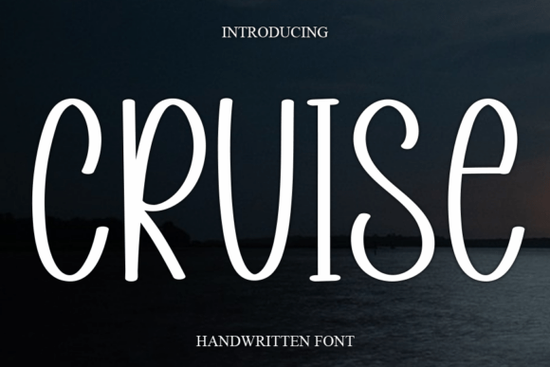
Looking for a font that brings a soft, personal touch to your designs? The Cruise Font is a great choice if you want something that feels warm and inviting. With its flowing cursive style, it’s perfect for adding a sense of elegance without being too formal. Whether you're working on a logo, wedding invitation, or a greeting card, Cruise has the versatility to fit a wide range of projects.
This handwritten font is ideal for designers who want to add a unique flair to their work. Its gentle curves and natural look make it stand out from more rigid typefaces. It works well in both digital and print formats, making it a reliable option for branding, marketing materials, and creative projects. If you're looking for a font that feels personal and expressive, Cruise is definitely worth considering.
What Makes Cruise Font Unique?
The Cruise Font stands out because of its easy-to-read yet artistic style. It’s not too ornate, which makes it suitable for a variety of uses. The font’s subtle details give it character without overwhelming the design. It’s especially good for projects that require a friendly, approachable feel.
If you’re a small business owner or a craft seller, this font can help you create eye-catching designs that feel authentic. It’s also a popular choice among print-on-demand sellers who want to offer custom products with a personal touch. The font’s readability ensures that it doesn’t sacrifice clarity for style.
Best Uses for Cruise Font
There are many ways to use the Cruise Font in your design work. Here are some common applications:
- Wedding invitations and stationery – Add a romantic and elegant feel to your designs.
- Greeting cards – Perfect for birthday, thank you, or seasonal cards.
- Branding and logos – Ideal for businesses that want a friendly and stylish image.
- Fashion and lookbooks – Adds a touch of sophistication to product displays.
- Marketing materials – Great for social media posts, banners, and ads.
Its adaptability means you can use it across different platforms and mediums. Whether you're designing for a client or working on your own creative project, Cruise offers a versatile and appealing option.
How Does Cruise Font Compare to Other Handwritten Fonts?
If you’ve used other script fonts like Belahgio Font, Melody Font, or Bestie Font, you’ll find that Cruise has a slightly different personality. While some script fonts lean more toward being formal or dramatic, Cruise maintains a balance between casual and refined. It’s less flashy than some options but still has enough character to make your designs stand out.
For those who prefer a more modern look, Wilson Font might be a good alternative. However, if you’re looking for something that feels more like a personal signature, Cruise is an excellent choice.
When using the font, keep in mind that it works best with simple layouts. Avoid using it for large blocks of text, as it may become hard to read. Instead, use it for headings, titles, or short phrases to maintain clarity and visual appeal.
Whether you're a designer, crafter, or small business owner, the Cruise Font is a valuable addition to your collection. Its soft, cursive style adds a personal and elegant touch to any project. Try it out and see how it enhances your creative work.